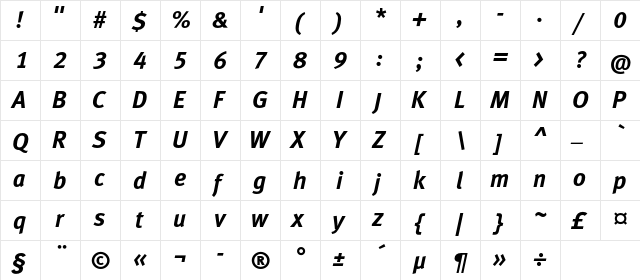
MetaBoldLFC Italic Font Preview
MetaBoldLFC Italic
Design Context for MetaBoldLFC Typeface
MetaBoldLFC takes a measured approach to typography — its balanced proportions and neutral character make it a reliable workhorse for both digital and print work. The slanted form adds forward momentum and visual energy. The heavy weight commands attention and anchors typographic hierarchies.
Pro Tip: Use MetaBoldLFC for emphasis, pull quotes, and subheadings where its slanted energy can add rhythm to the layout.